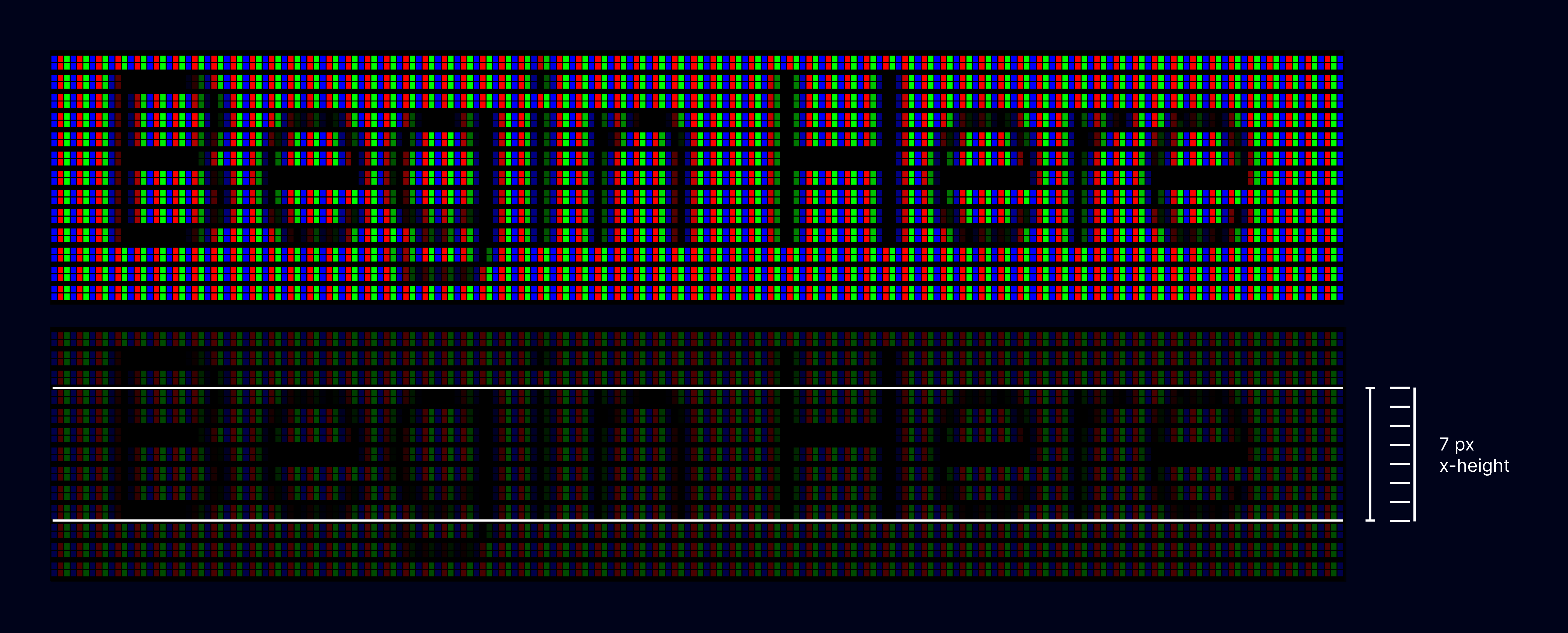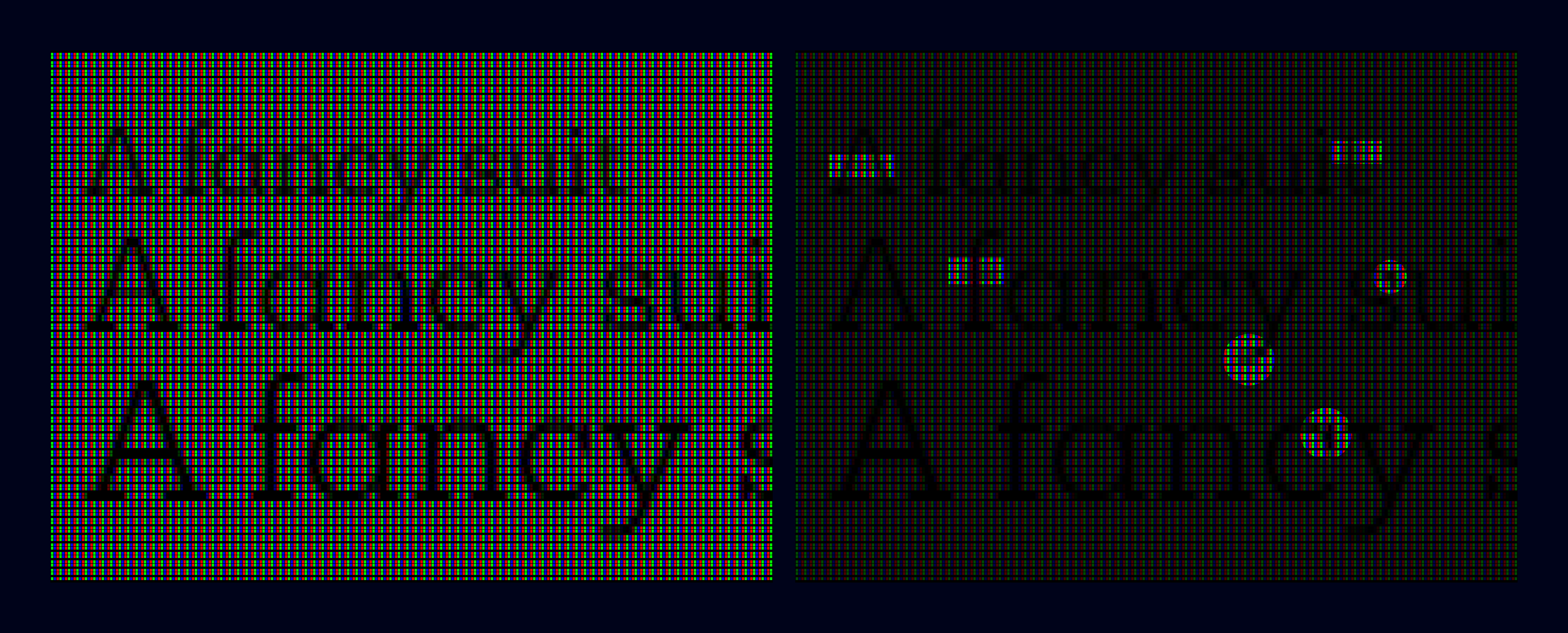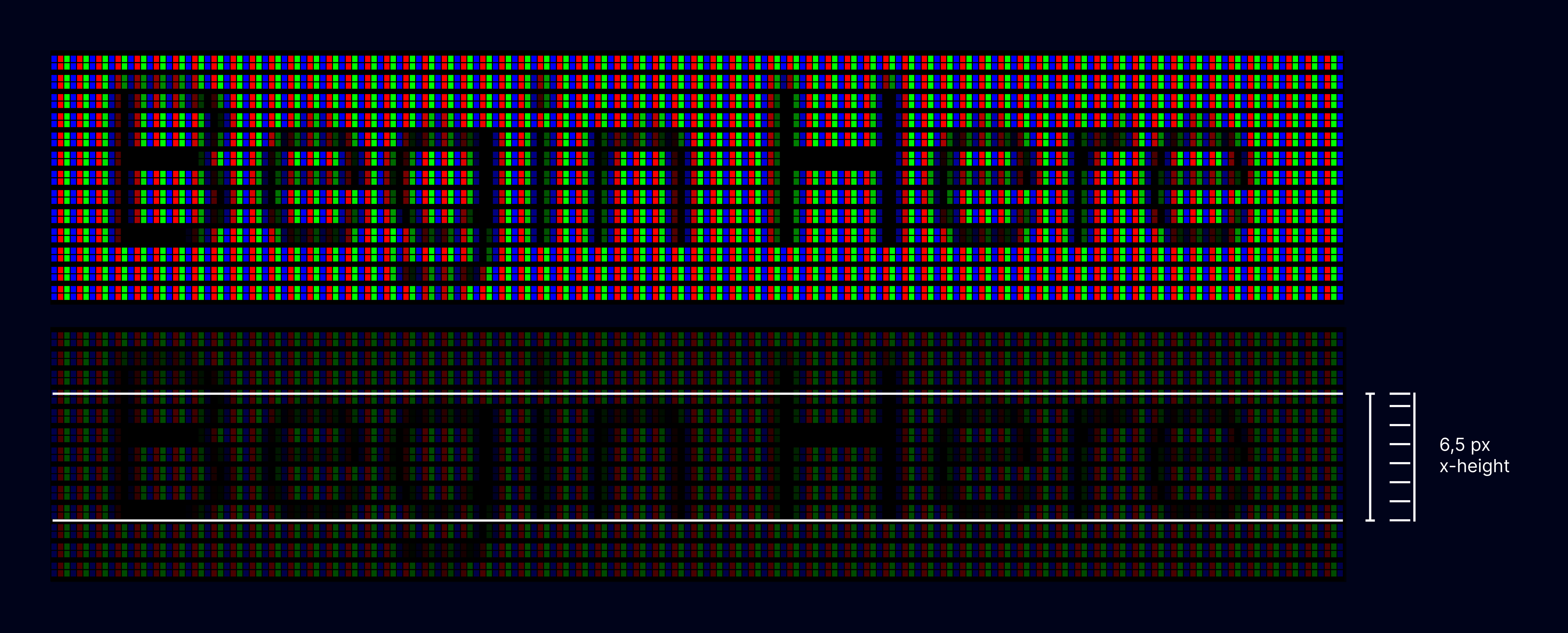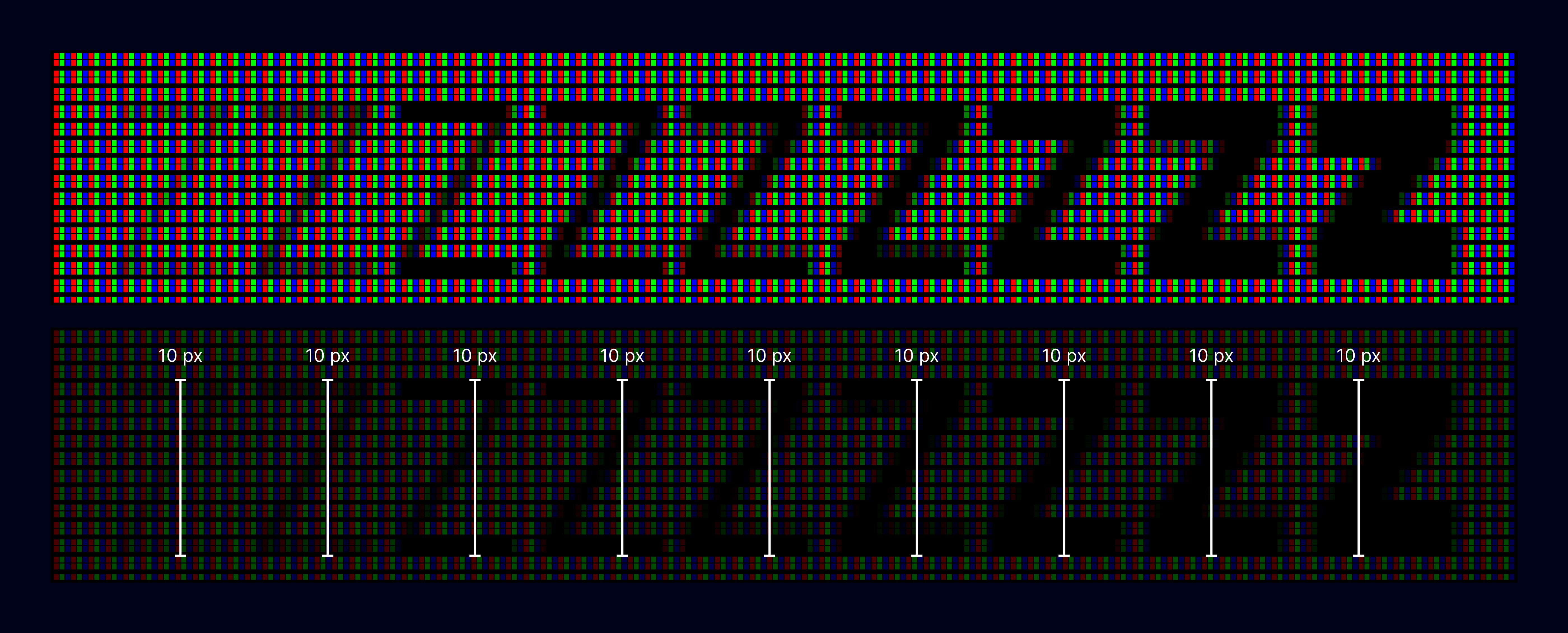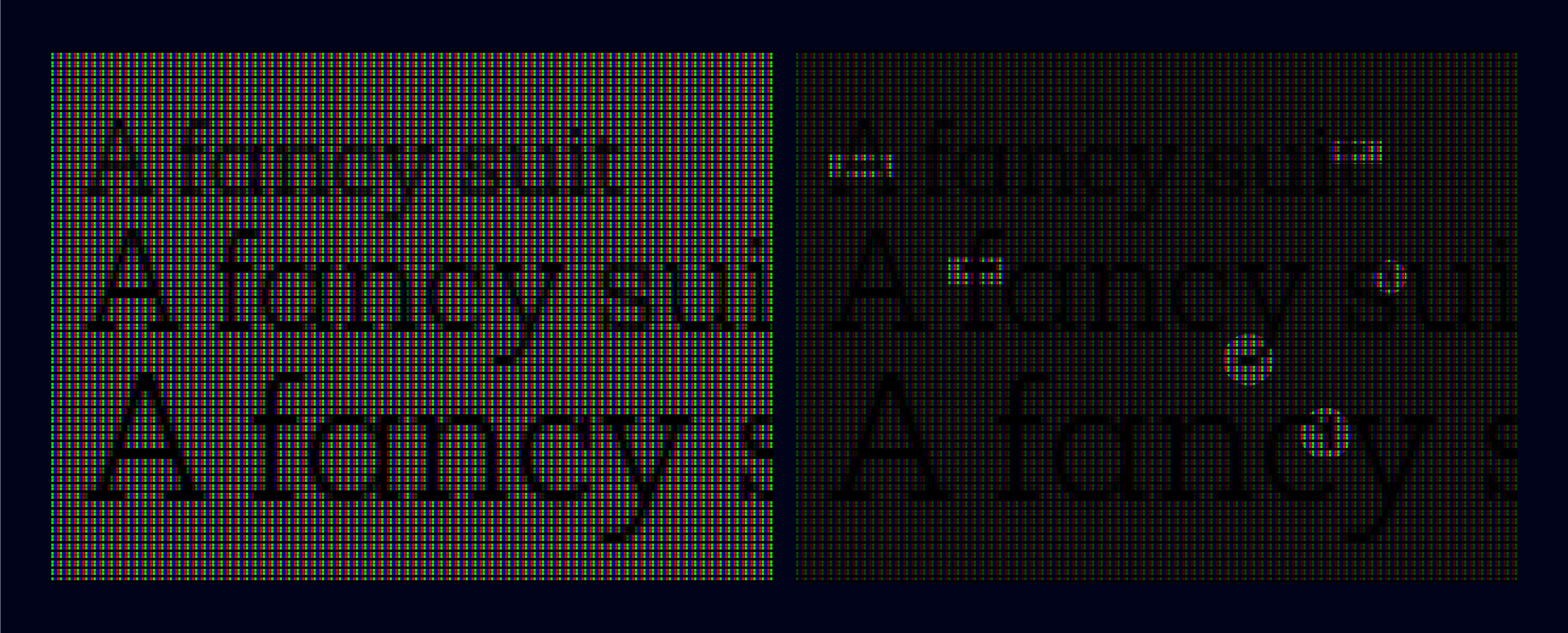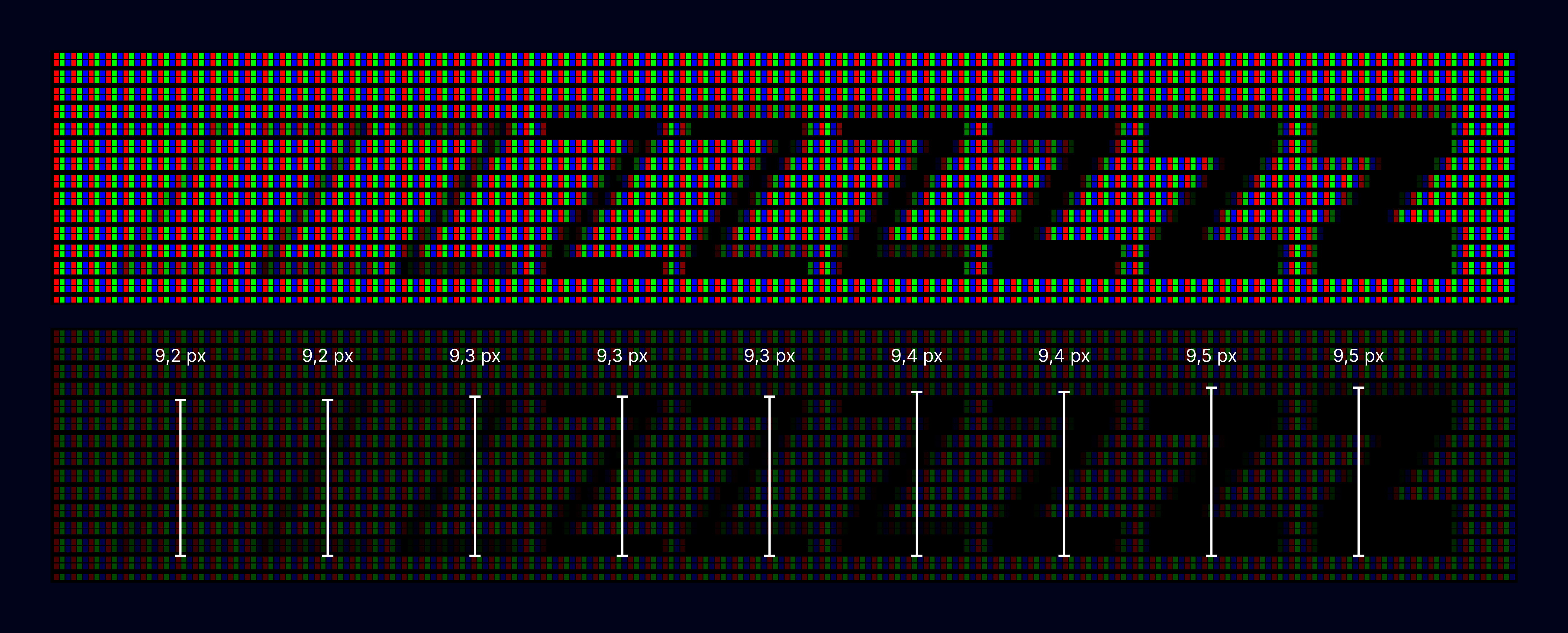
PixelFix
What is PixelFix?
PixelFix is a font technology developed by Dalton Maag to help improve the clarity of letters and symbols in modern applications on high resolution screens, without the large file size increases often seen with traditional screen optimization techniques (also known as ‘hinting’). PixelFix is a library of common functions which are selectively embedded in each font file and called on a character-by-character basis.
Where is PixelFix used?
All of the variable fonts in Dalton Maag’s library now feature PixelFix font technology; PixelFix will be rolled out to the static fonts in Dalton Maag’s library over the coming months.
Where appropriate, PixelFix is also available for custom typeface design and font modification projects. The common PixelFix code library is owned by Dalton Maag and licensed to clients at no cost; this does not affect the transfer of ownership for custom designs.
The benefits of PixelFix
1. Compact file sizes
The file size increase of adding PixelFix to a font will vary by writing system and language coverage, but it is consistently smaller than traditional approaches to screen optimization. For fonts covering the languages of Western Europe which use the Latin writing system the increase is typically under 10kB for OpenType format and under 5kB for WOFF2 (web), both compared to a file with no screen optimization. Traditional approaches to screen optimization can give a 50% increase in file size, so the download speed advantages can be significant. The small file sizes, and universal use of modern display technology by web browsers, make PixelFix perfect for fonts on the web.
PixelFix achieves this compactness by using two approaches:
- PixelFix only targets modern applications on today’s high resolution screens. It aims to maximize the clarity of each character by using the available pixels to best present the design features and changes in weight across a family. By not targeting legacy display technologies, PixelFix saves significant file size.
- PixelFix groups common character shape behaviours into single functions, reducing duplication and maximizing consistency.
The small file sizes, and universal use of modern display technologies by web browsers, make PixelFix perfect for fonts on the web.
2. Improved clarity and quality
The effects of PixelFix shine in variable fonts and across the weights and styles in a family.
Quality is improved using PixelFix in all modern Windows applications which use DirectWrite. Legacy applications (those which use the older graphics API known as GDI) do not truly benefit from PixelFix; their display quality will be only slightly improved when compared to fonts without screen optimization.
PixelFix has no effect in most Apple operating systems as they ignore all of the screen optimization instructions embedded in a font file and use their own approach to improving clarity.
3. Preserving Family Relationships
Characters remain clear, subtle weight changes are perceptible, and family relationships, such as a consistent x-height, are preserved.
Aktiv Grotesk’s x-height increases with its weight to give a consistent appearance in print; but at lower resolutions PixelFix regularizes this subtle variation, ensuring that weights match when used together on screen.
4. Targeting Clarity
The primary aim of PixelFix is to present the distinctive, often varying, features of a design as clearly as possible. While it does not have the same level of control as traditional screen optimization techniques, PixelFix does still preserve the important features which help keep characters clear and text legible.
PixelFix exaggerates the heights of characters at small sizes to improve their clarity.
5. Revealing Distinctive Design Features
PixelFix’s approach reveals distinctive design features as size increases, while still maximizing clarity.
At small sizes, PixelFix prioritizes the clarity and solidity of each character, but as the size increases, PixelFix allows Mokoko’s distinctive features – the angled terminals, precise junctions, slab serifs, and subtle curves – to be revealed.
What is PixelFix compatible with?
Font files which use PixelFix are fully compatible with all OpenType rasterizers; they do not require a special or bespoke rasterizer. PixelFix’s output is optimized for modern rasterizers and rasterization modes, such as the current Windows graphics API known as DirectWrite, using the CTAA (ClearType anti-aliasing) mode.